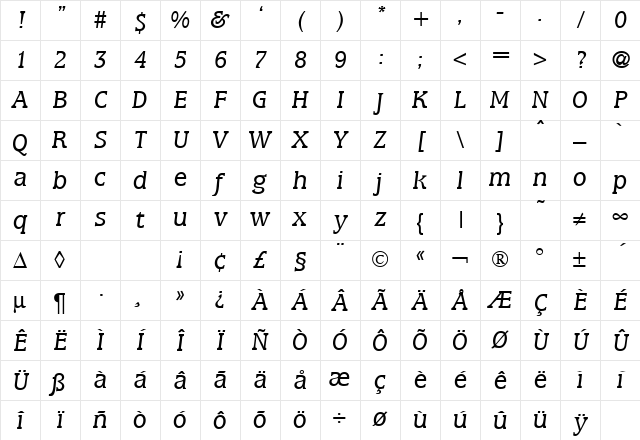
Marburg RegularItalic
Style: RegularItalic
Marburg Family
Design Context for Marburg
Marburg is a composed and adaptable typeface that performs quietly and consistently across a wide range of design contexts. The slanted form adds forward momentum and visual energy.